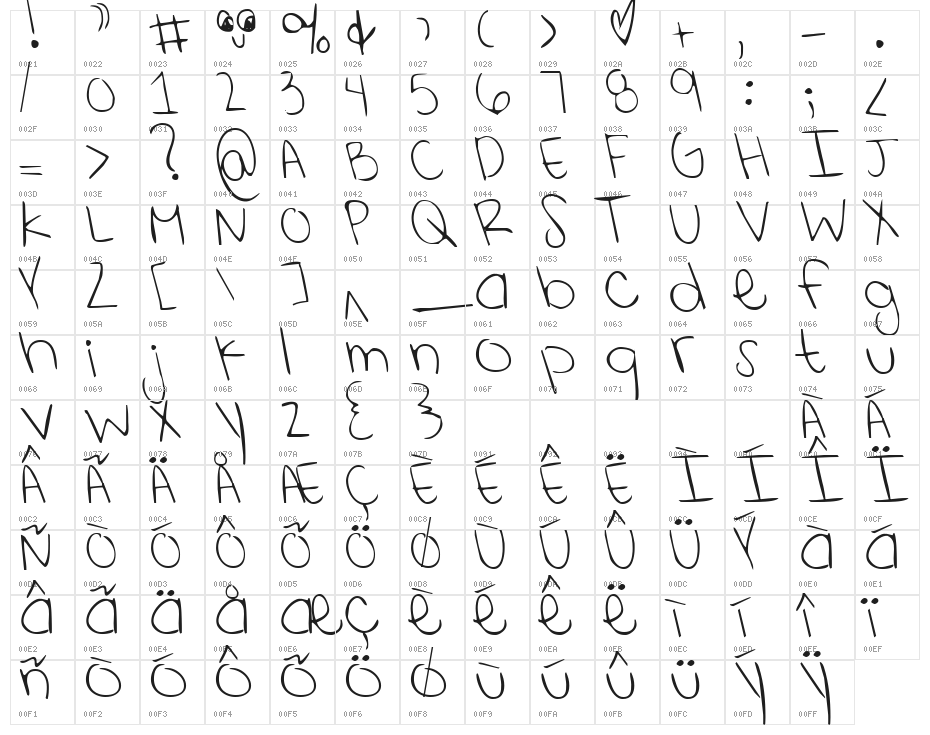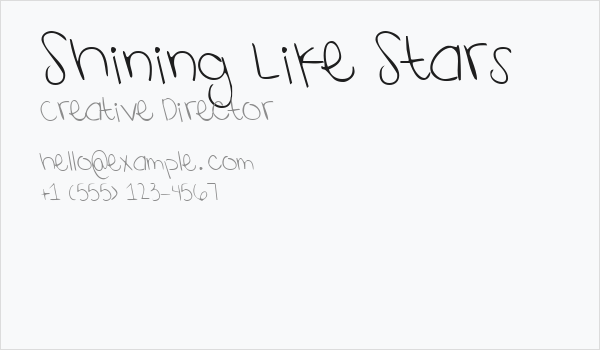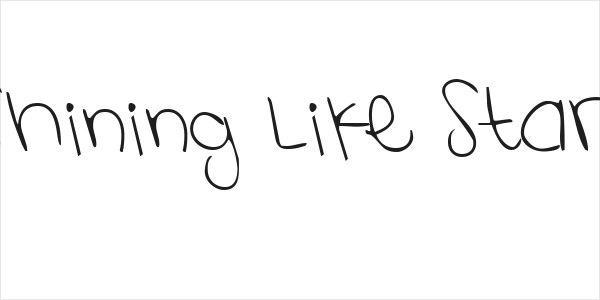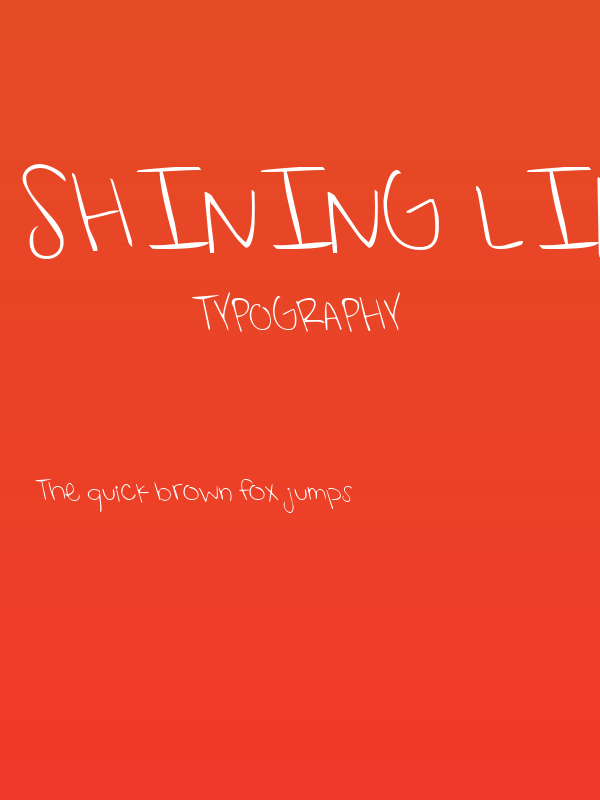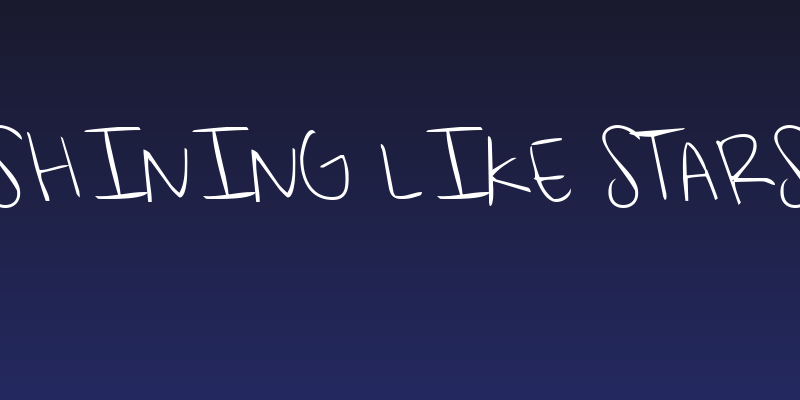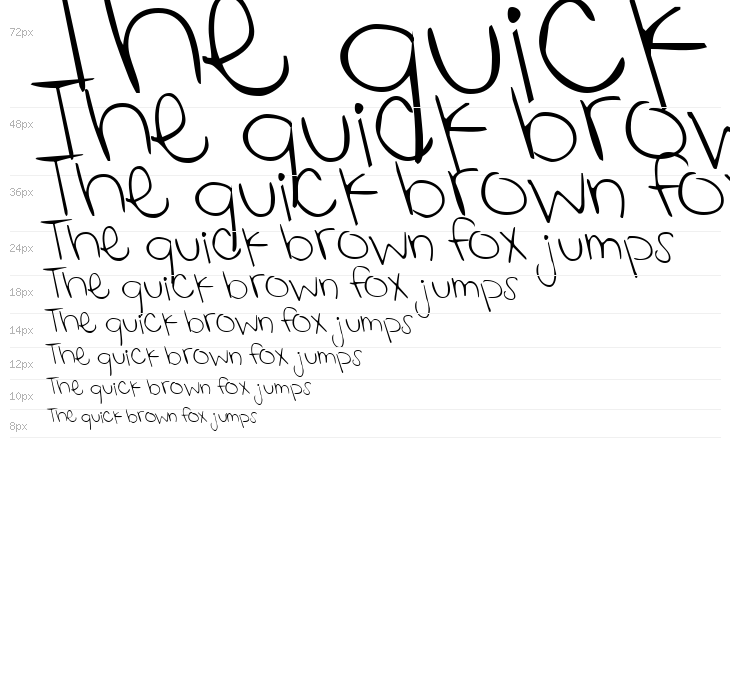
Shining Like Stars Font
Shining Like Stars Description
This playful and whimsical font features irregular, hand-drawn characters that exude a sense of fun and creativity. The letters have a casual, informal style with varying stroke widths, giving them a lively and dynamic appearance. The uppercase and lowercase letters are distinct, with a slightly exaggerated, cartoonish flair. Numbers and special characters maintain the same playful aesthetic, making this font ideal for projects that require a touch of personality and charm. Its unique style is perfect for capturing attention and conveying a sense of joy and spontaneity.
| Proposed Projects | Ideal for children's books, playful branding, greeting cards, and creative posters. |